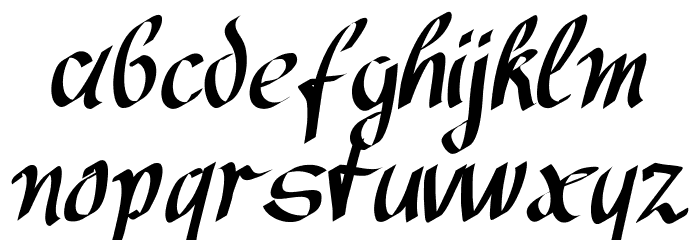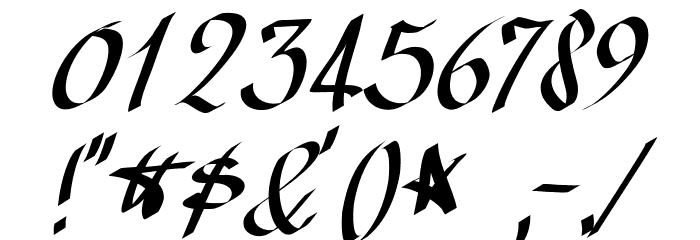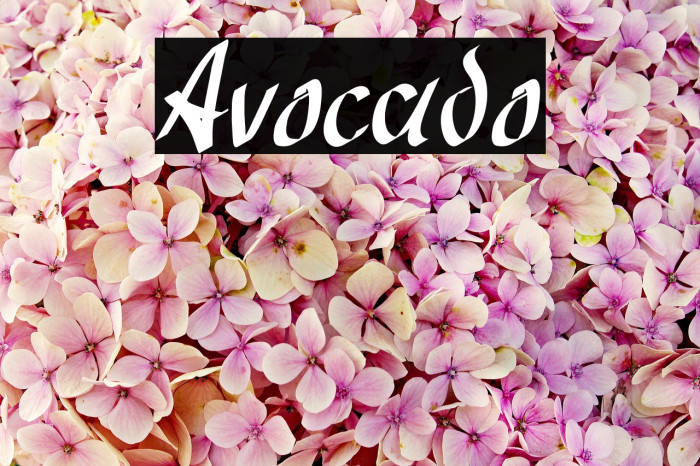
Avocado Font
This font features a bold and dynamic script style with a calligraphic flair. The characters are crafted with sharp, angular strokes that give a sense of movement and energy. The uppercase letters are particularly striking, with dramatic flourishes and a sense of grandeur. The lowercase letters maintain a consistent style, offering a cohesive look across the alphabet. Numbers and special characters follow the same design principles, ensuring uniformity. This font is ideal for projects that require a touch of elegance and sophistication, while still maintaining a modern edge.
A bold, calligraphic script font with dynamic, angular strokes.
- Proposed Projects: Ideal for wedding invitations, branding, logos, and elegant packaging designs.
- Use Case: Logos, Headlines, Invitations